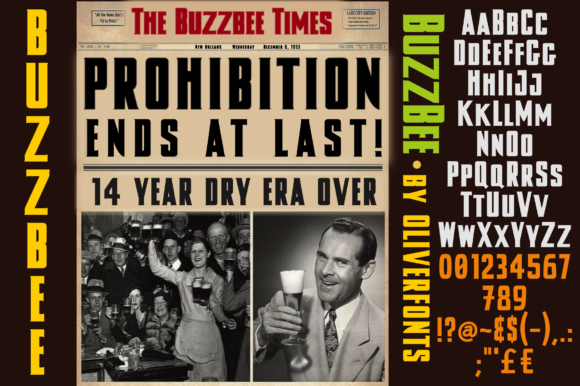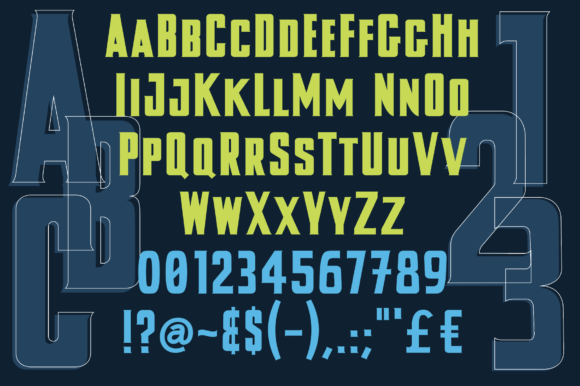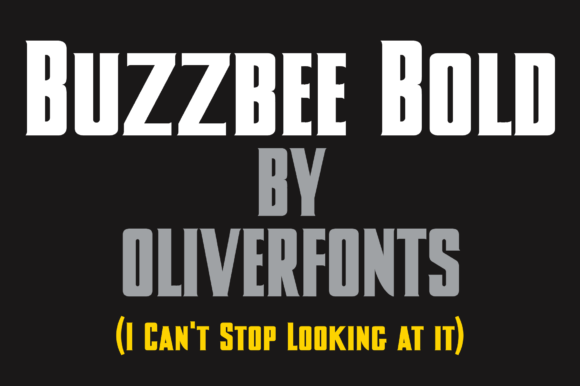
Introducing Buzzbee Font: A Fresh, Bold, and Organic-Looking Serif Font
Are you tired of using the same old fonts in your designs? Look no further than Buzzbee Font, a fresh, bold, and organic-looking serif font that’s sure to elevate your creations. Whether you’re a designer, crafter, or simply someone who loves to dabble in typography, Buzzbee is an incredible asset to have in your font library.
The Buzz on Buzzbee
Buzzbee is a unique and versatile font that’s perfect for a wide range of projects. Its bold and organic design makes it stand out from more traditional serif fonts, while its classic feel ensures it remains timeless and sophisticated. Whether you’re working on a logo, brochure, or website, Buzzbee is the perfect choice for adding a touch of personality and style.
Key Features of Buzzbee Font
- Fresh and Bold Design: Buzzbee’s unique design makes it perfect for headlines, titles, and other display text.
- Organic-Looking Serif: The font’s organic serif design gives it a natural and earthy feel that’s perfect for crafty and handmade projects.
- Highly Versatile: Buzzbee is suitable for a wide range of projects, from logos and branding to packaging and web design.
- Easy to Read: Despite its bold design, Buzzbee is surprisingly easy to read, making it perfect for body text as well as headlines.
Why Designers and Crafters Love Buzzbee
So why do designers and crafters love Buzzbee Font? For starters, its unique design makes it a great way to add personality and style to your projects. Whether you’re working on a logo, business card, or website, Buzzbee is sure to make your design stand out from the crowd.
But Buzzbee is more than just a pretty face. Its versatility and legibility make it a practical choice for a wide range of projects, from print materials to digital designs. Plus, its organic design gives it a natural and earthy feel that’s perfect for crafty and handmade projects.
How to Use Buzzbee Font in Your Designs
So how can you use Buzzbee Font in your designs? Here are a few ideas to get you started:
- Headlines and Titles: Use Buzzbee to add a bold and eye-catching touch to your headlines and titles.
- Logos and Branding: Create a unique and memorable logo with Buzzbee’s distinctive design.
- Packaging Design: Add a touch of personality to your packaging with Buzzbee’s organic and earthy design.
- Web Design: Use Buzzbee to create bold and eye-catching headings and titles for your website.
| Author | OLIVERFONTS |
In conclusion, Buzzbee Font is an incredible asset to have in your font library. Its fresh, bold, and organic-looking design makes it perfect for a wide range of projects, from logos and branding to packaging and web design. Whether you’re a designer, crafter, or simply someone who loves typography, Buzzbee is sure to elevate your creations and add a touch of personality and style.